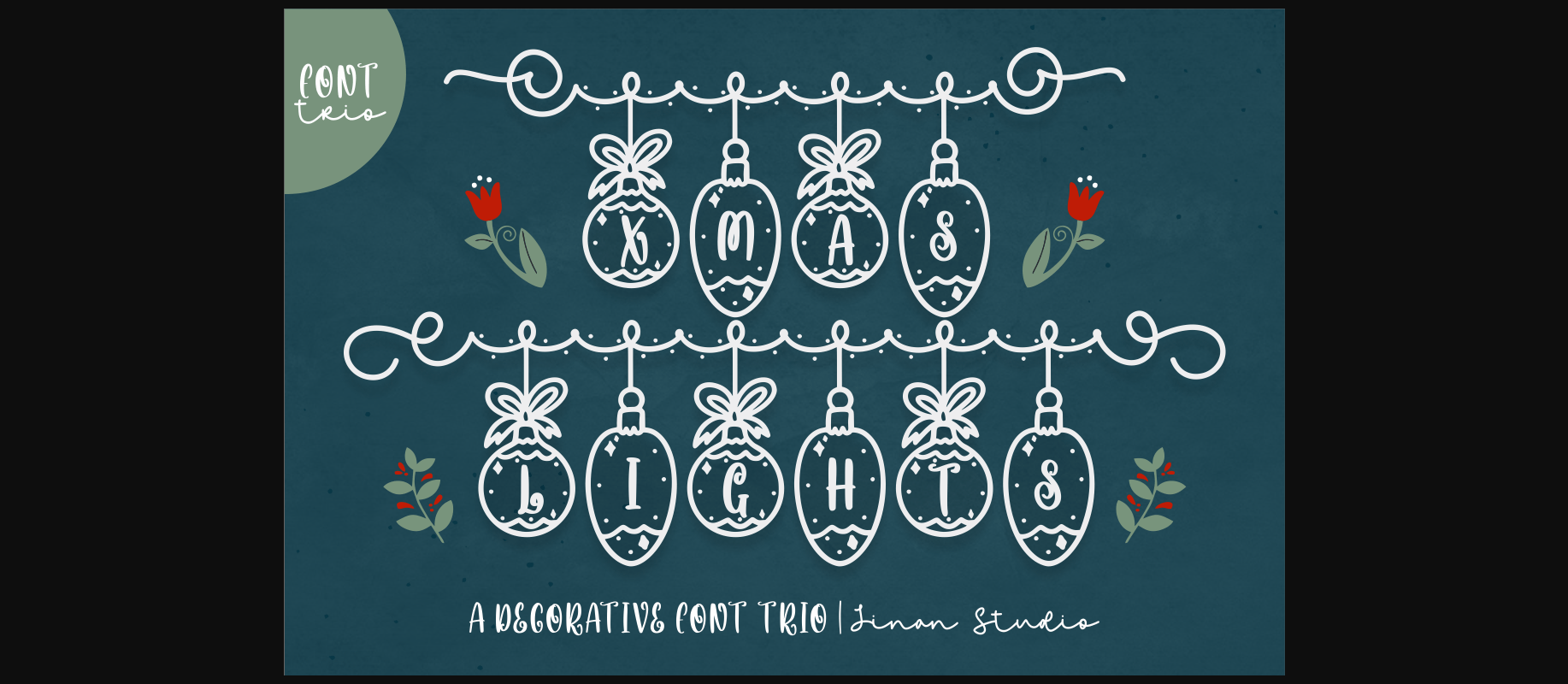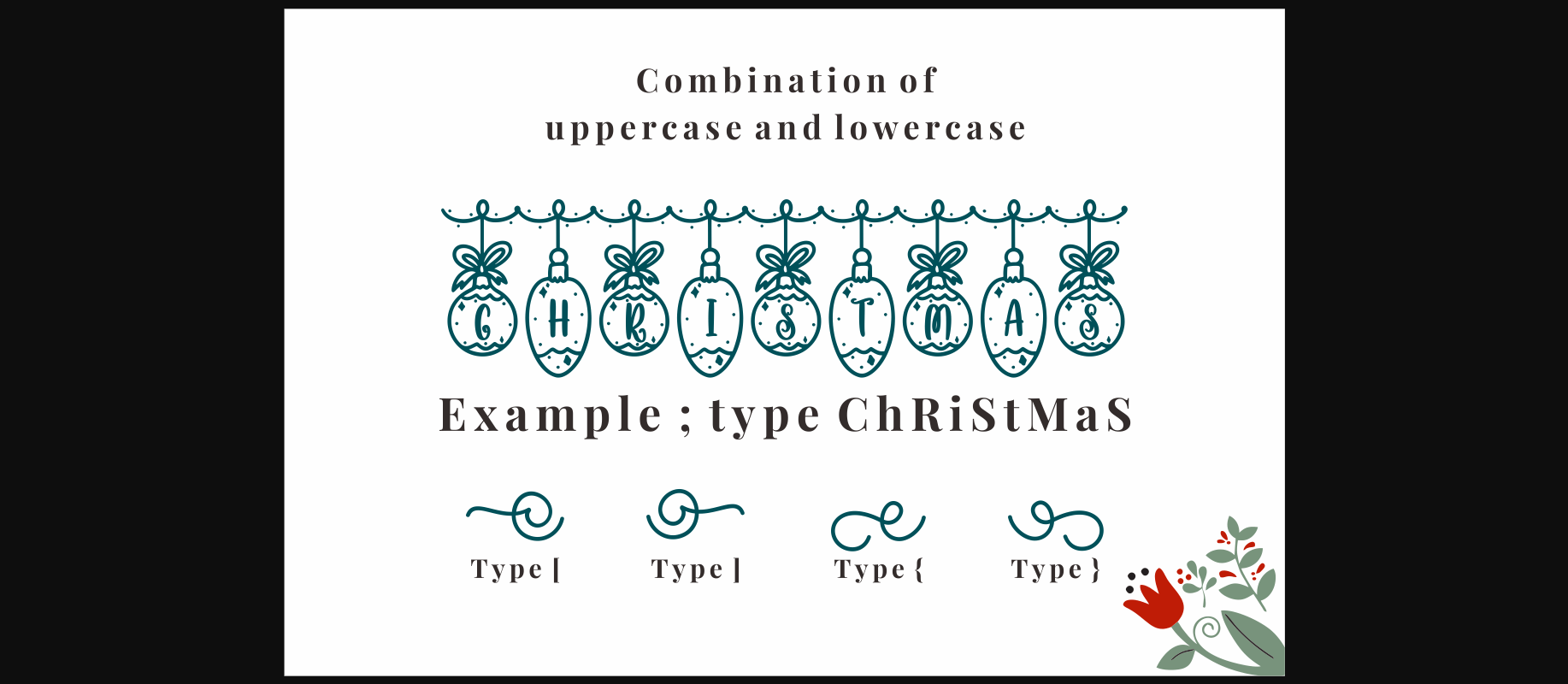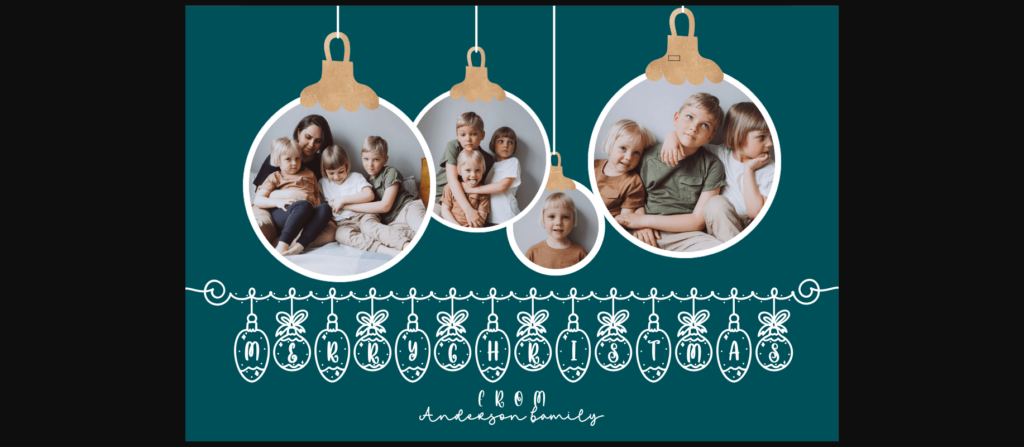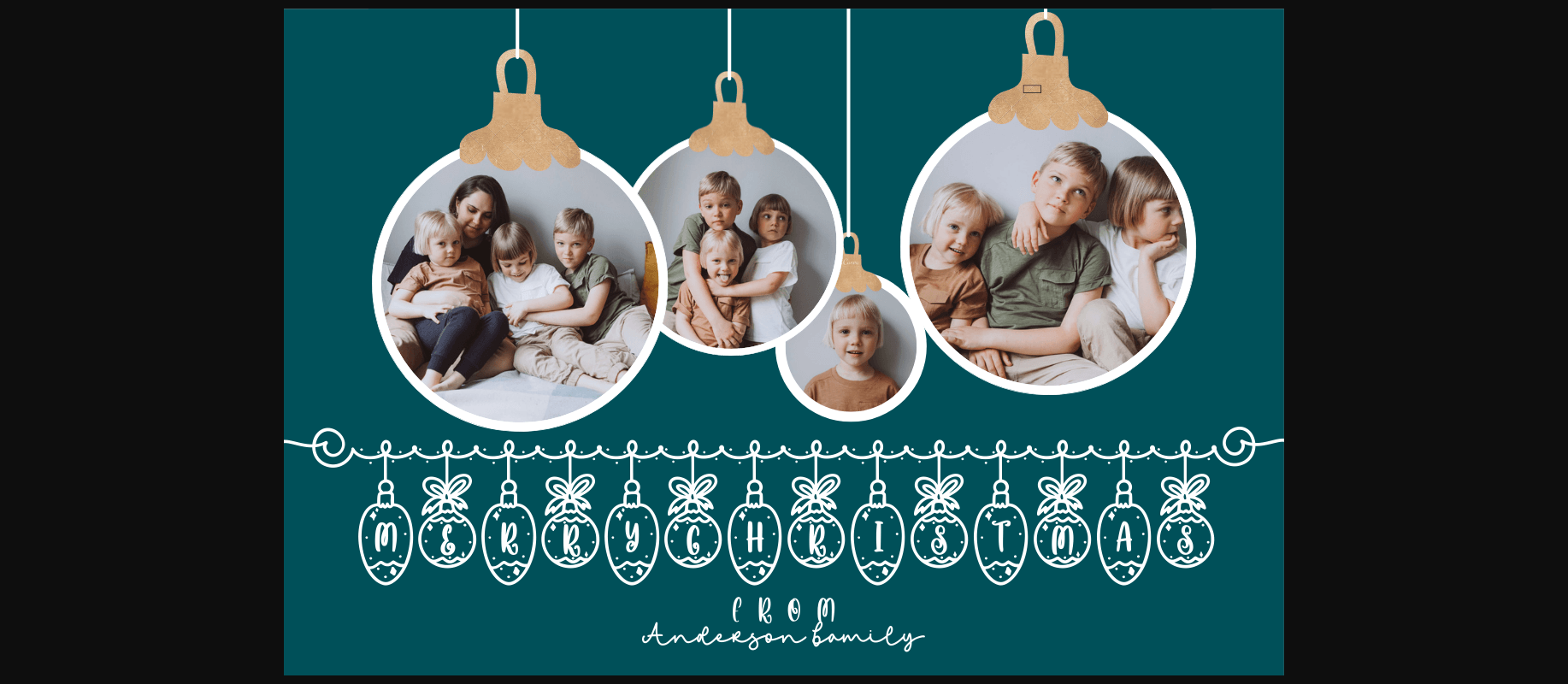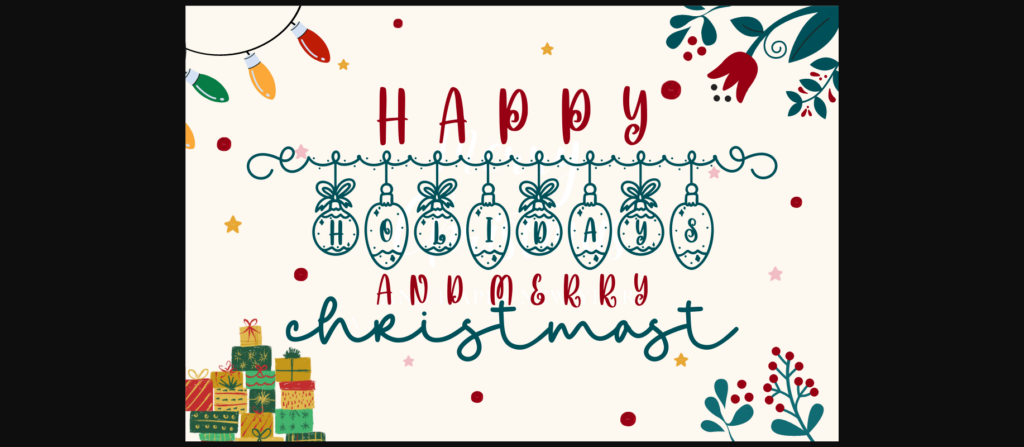
About Xmas Lights Trio Font
Xmas Lights Trio is a stylish and delicate trio font (decorative, monoline script & sans serif) suitable for a wide spectrum of applications. From greeting cards to headlines, this font will guarantee a romantic touch to each of your creations! Xmas Lights Trio is PUA encoded which means you can access all of the glyphs and swashes with ease.